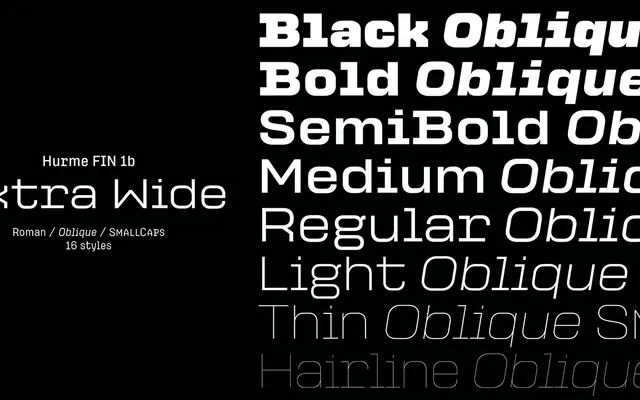
Hurme FIN 1b Extra Wide
The extra-wide cut of Hurme FIN 1b, a simplified monolinear sans with angular, monospace-influenced letterforms and horizontal stroke terminals across eight weights with obliques.
Hurme FIN 1b sits between the grotesque FIN 1a and the monospaced FIN Mono, distinguished by angular characters and slab-serif details accessible via OpenType alternates. This extra-wide variant is one of nine width grades in a family spanning 144 styles in total, each with eight weights and matching obliques. Buyers receive corresponding FIN 1a weights at no extra cost, and the family includes a full set of OpenType features including small caps, oldstyle figures and discretionary ligatures.
Described as a simplified monolinear sans-serif with horizontal stroke terminals; FIN 1b specifically features angular, monospace-inspired characters with slab-serif details, positioning it between a grotesque and a monospaced design.